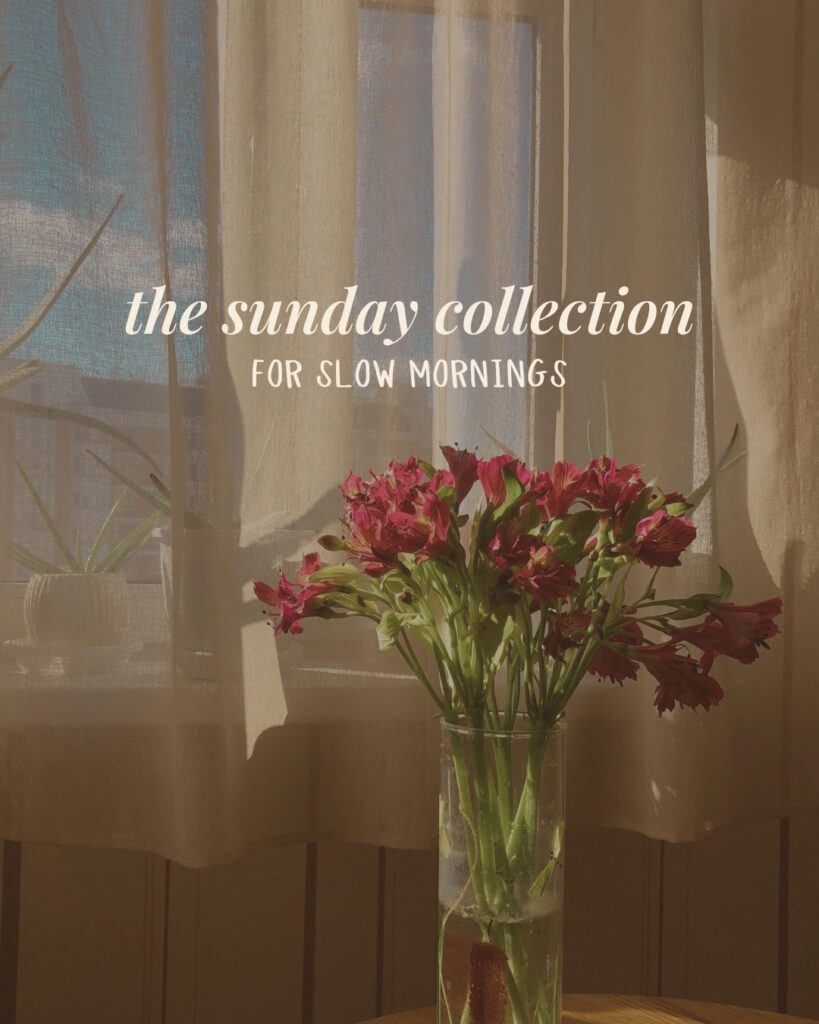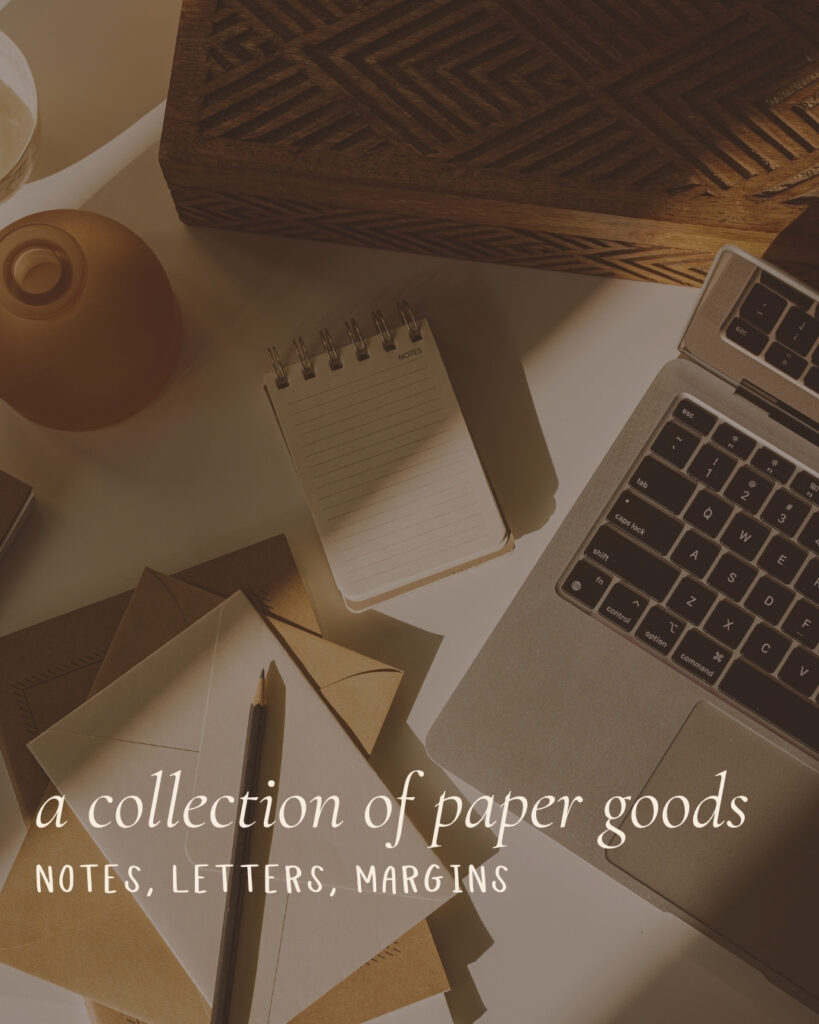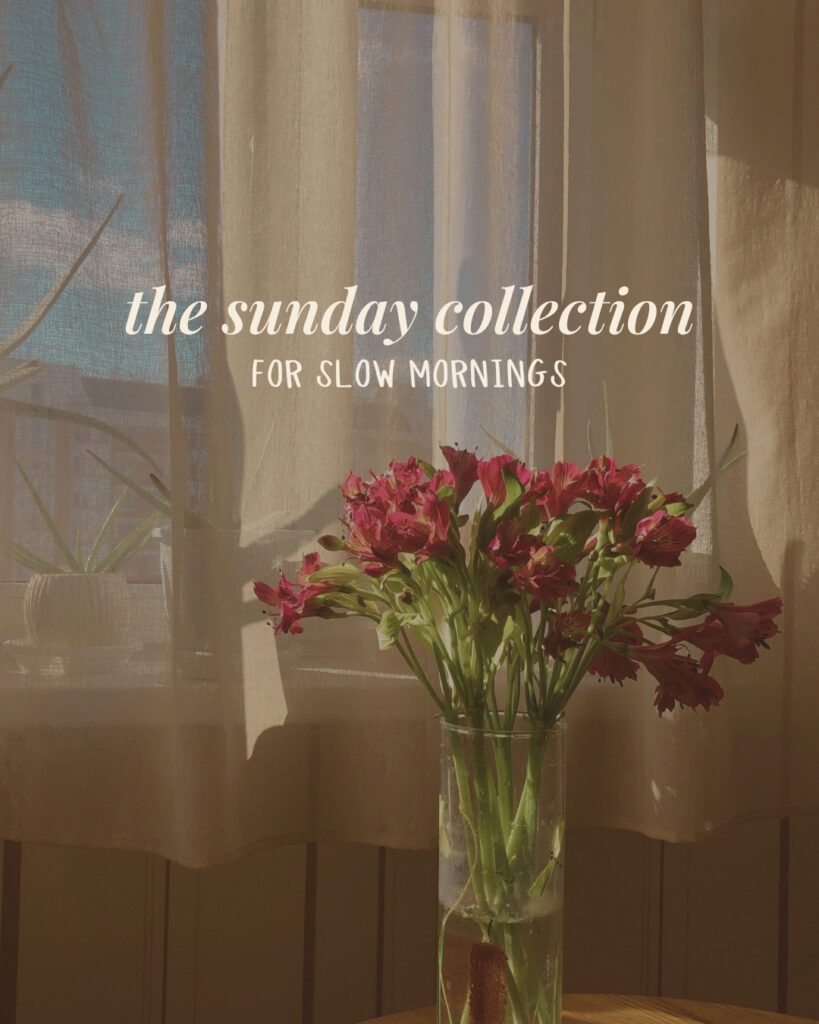
This week’s drop builds on the Kindest Note demo!!
I started playing with a few pairing directions, and they turned into full compositions almost immediately.
Same base font. Completely different feel depending on what it’s paired with. So instead of just showing them, I turned them into something you can actually use!
Free Font Pairing Templates For Branding Using Kindest Note
This is a set of pre-built font pairing templates designed to give you a starting point. Everything is already set up for you!
How you can use these font pairings:
- Plug them into your own designs.
- Swap fonts in and out.
- Adjust spacing and scale.
- Or use them exactly as they are.
These aren’t just examples. They’re meant to be used, reused, and layered into your work over time.
What’s Included In These Canva Font Pairing Templates
– Pre-set font pairings using Kindest Note.
– Fully editable Canva layouts.
– Ready-to-use compositions.
– Multiple pairing directions from one base font.
How To Use Font Pairing Templates For Branding
Start by opening the template and duplicating the page.
From there, you can:
- Swap in your own brand colors.
- Replace supporting fonts if needed.
- Adjust spacing to fit your layout.
- Layer in textures, frames, or additional elements.
This is meant to remove the “where do I start?” part of designing.
Why Font Pairing Matters In Branding And Design
Font pairing is what gives your work direction. You can use the same font over and over, but the pairing is what changes the feeling.
A soft script can feel editorial, minimal, structured, or expressive. It all depends on what you put next to it. That’s what this set is exploring!
A Reusable Font Pairing System For Your Brand Library